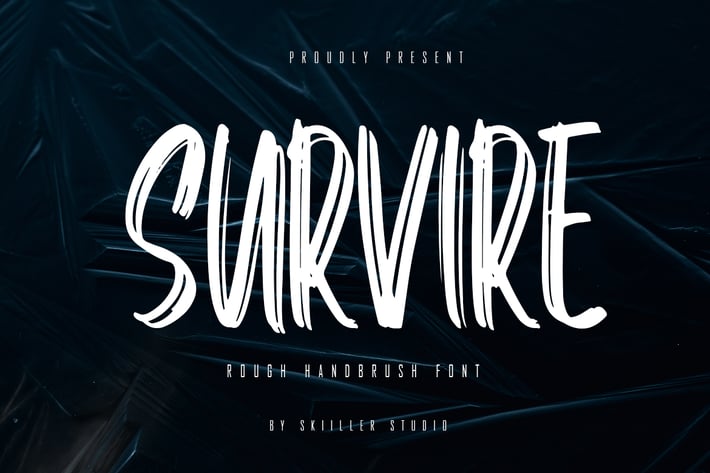
Survire - Rough Handbrush Font
Survire is a modern and brushed display font, crafted to give your headlines and logotype projects a stylish touch. This font reads as strong, confident, and dynamic and can add tons of urban character to your designs.
+ Basic Latin Language Support (AÀÁÂÃÄÅCÇDÐEÈÉÊËIÌÍÎÏÑOØÒÓÔÕÖUÙÜÚÛWYÝŸÆß )